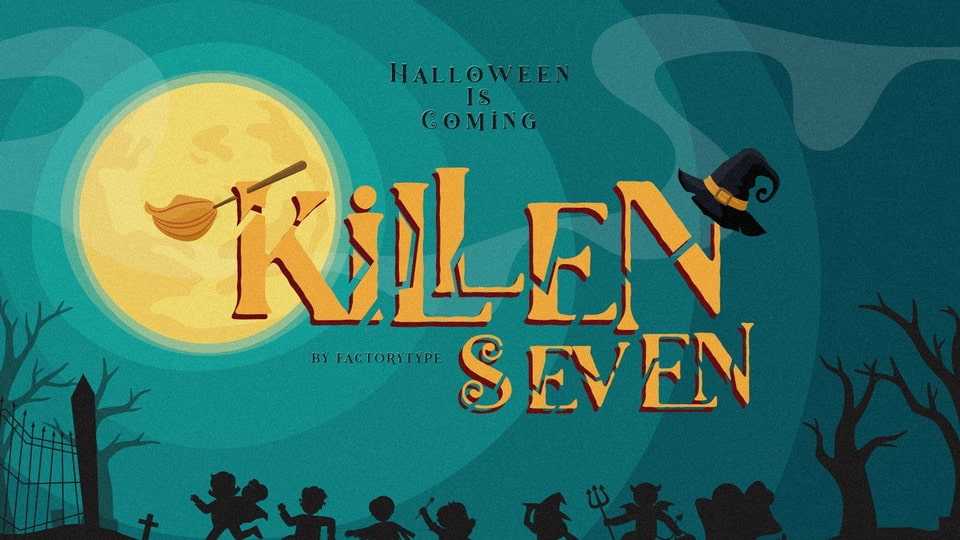
Download Killen Seven font, an excellent choice for any Halloween project. Get inspired by its spooky atmosphere and use it to make any Horror project stand out.
Designer: Factory Type